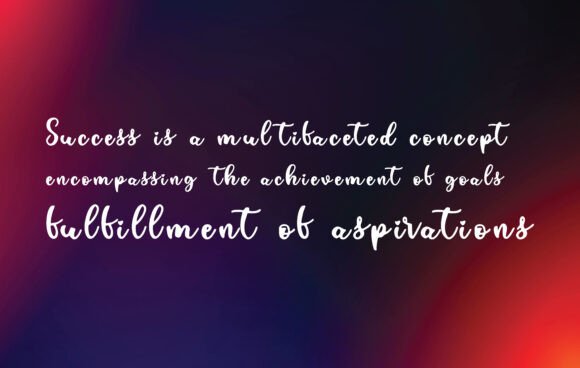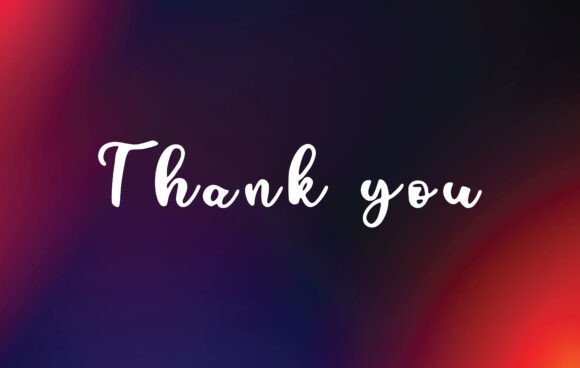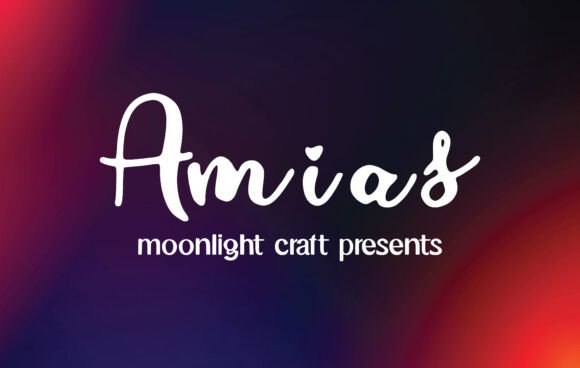
Introducing Amias Font: Elevate Your Creative Projects with Elegance
Are you on the hunt for a font that can add a touch of sophistication and charm to your creative projects? Look no further than Amias Font, a lovely and beautiful handwritten font that has the potential to take your ideas to new heights. In this article, we’ll dive into the world of Amias Font, exploring its features, benefits, and uses, and why it’s the perfect choice for designers and crafters looking to create eye-catching logos, branding, and quotes.
What is Amias Font?
Amias Font is a stunning handwritten font that exudes elegance and refinement. Its unique and flowing script makes it perfect for a wide range of creative projects, from logos and branding to quotes and social media graphics. With its beautiful lettering and smooth curves, Amias Font is sure to capture the attention of your audience and leave a lasting impression.
Features of Amias Font
So, what makes Amias Font so special? Here are just a few of its key features:
- Handwritten script: Amias Font boasts a beautiful, handwritten script that adds a touch of personality and warmth to any project.
- Elegant and refined: With its smooth curves and flowing lines, Amias Font is the perfect choice for projects that require a touch of sophistication and elegance.
- Highly versatile: Whether you’re creating a logo, branding materials, or social media graphics, Amias Font is highly versatile and can be used in a wide range of creative projects.
- Easy to read: Despite its elegant and refined appearance, Amias Font is highly legible and easy to read, making it perfect for use in quotes, headlines, and body text.
Benefits of Using Amias Font
So, why should you choose Amias Font for your creative projects? Here are just a few of the benefits of using this beautiful font:
- Adds a touch of elegance: With Amias Font, you can add a touch of sophistication and elegance to your projects, setting them apart from the competition.
- Increases creativity: The unique and flowing script of Amias Font can help to inspire your creativity and take your projects to new heights.
- Perfect for branding: Amias Font is highly versatile and can be used in a wide range of branding materials, from logos and business cards to social media graphics and website headers.
Uses of Amias Font
So, what can you use Amias Font for? Here are just a few ideas to get you started:
- Logos and branding: Amias Font is perfect for creating eye-catching logos and branding materials that will help your business stand out.
- Quotes and social media graphics: With its elegant and refined appearance, Amias Font is highly suitable for use in quotes and social media graphics.
- Wedding and event invitations: Amias Font is a beautiful choice for wedding and event invitations, adding a touch of elegance and sophistication to your designs.
- Packaging and product design: Amias Font can also be used in packaging and product design, helping to create a cohesive and eye-catching brand identity.